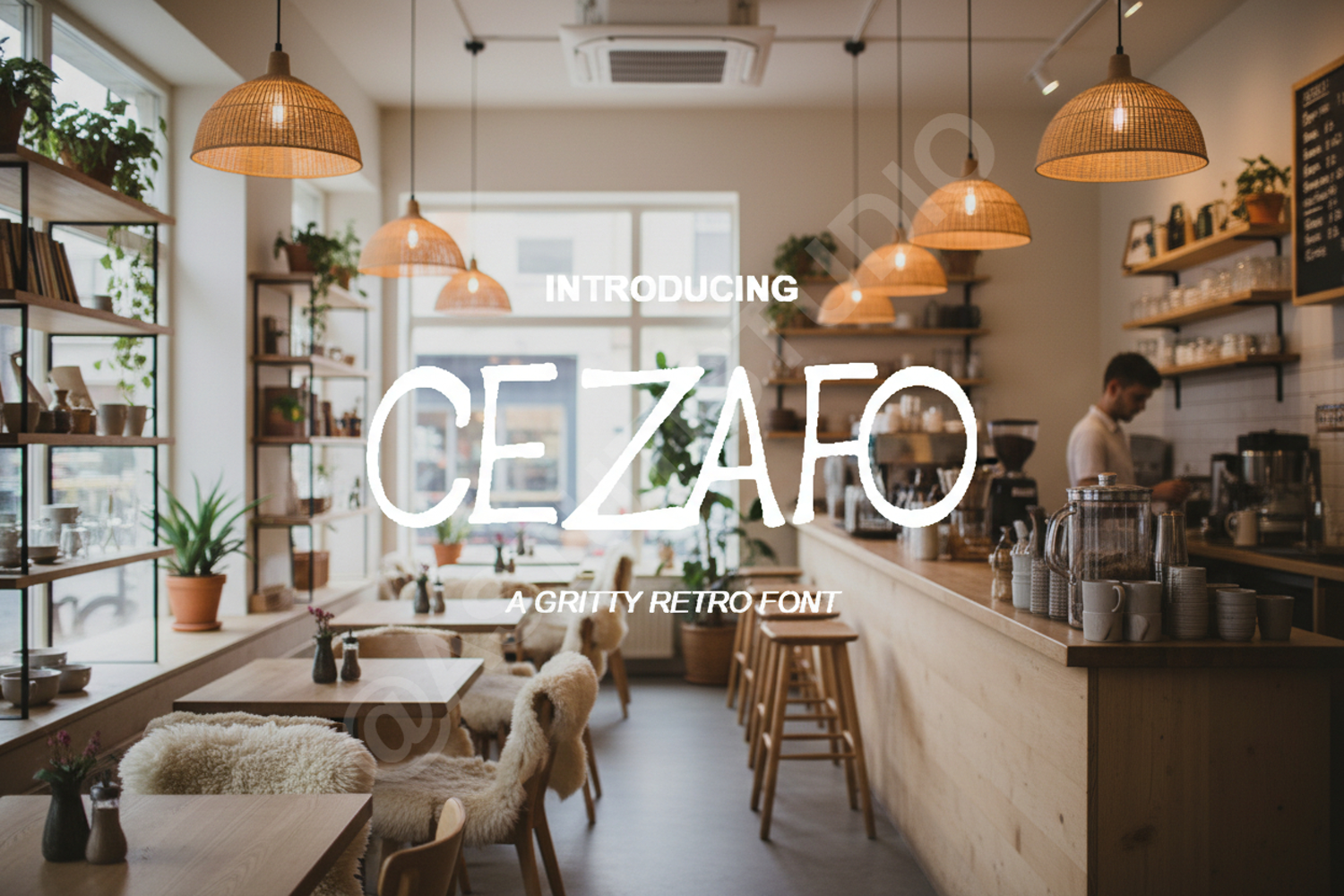
Cezafo | Modern & Sophisticated Sans Serif Typeface
Cezafo
Cezafo is a premium sans serif typeface that balances modern geometric precision with sophisticated elegance. Designed for high-end branding and professional layouts, this font offers exceptional legibility across both digital and print mediums. Whether you are crafting a minimalist logo or a detailed editorial spread, Cezafo provides the versatility needed to elevate your creative projects to a professional standard.
- Branding and Visual Identity: Perfect for creating memorable and professional logos.
- Editorial Design: Ideal for magazine layouts, headlines, and clean body text.
- Digital Marketing: Enhances social media graphics and modern website interfaces.
- Corporate Stationery: Elevates business cards, letterheads, and formal presentations.
- Wedding Invitations: Adds a clean, contemporary touch to modern event stationery.